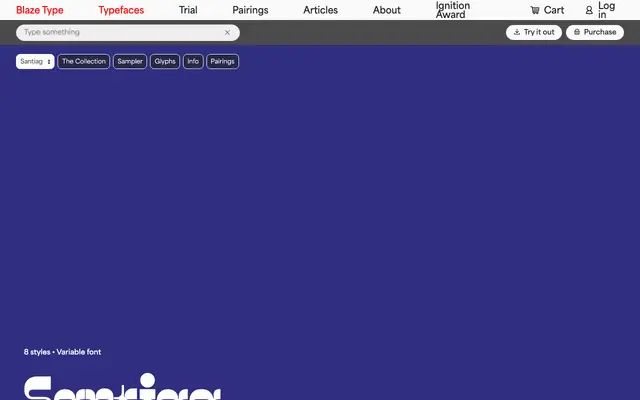
Santiag
A contemporary western display typeface by Clement Cases drawing on reversed-stress Italian letterforms from the 19th century, with geometric counter forms built around a half-circle motif.
Designed by Clement Cases and released in 2024, Santiag takes the reversed-stress tradition of 19th-century Italian typefaces and reworks it with geometric counter forms. The half-circle drives the rhythm of the letterforms, while square angles appear both inside and outside the characters across eight stylistic variants. A variable font axis controls the height of the base, allowing the overall feel to shift from bold display to something more cartoonish.
A contemporary western typeface with reversed stress inspired by 19th-century Italian typefaces, incorporating geometric counter forms and half-circle serifs. Its decorative, cartoonish character and adjustable base height place it firmly in the display category.